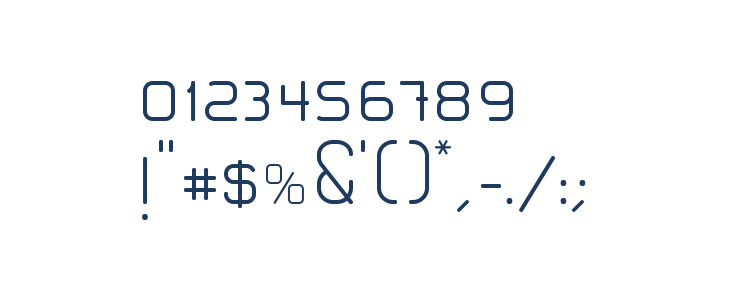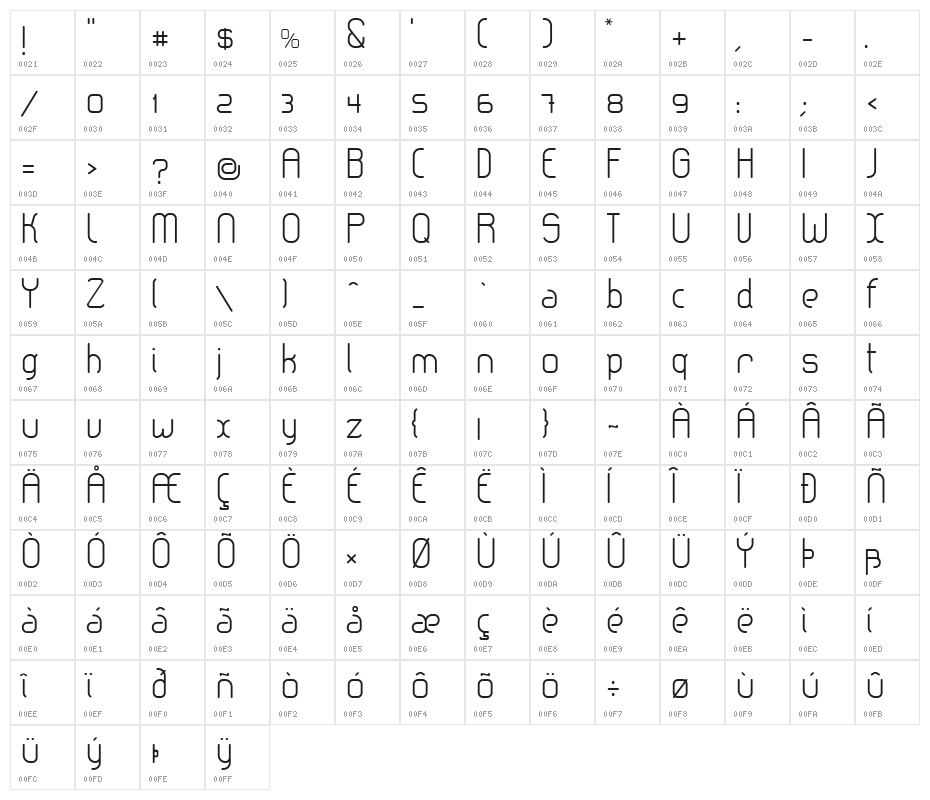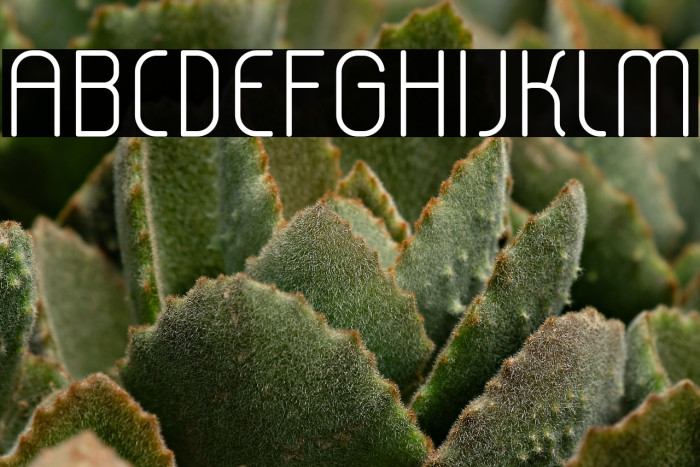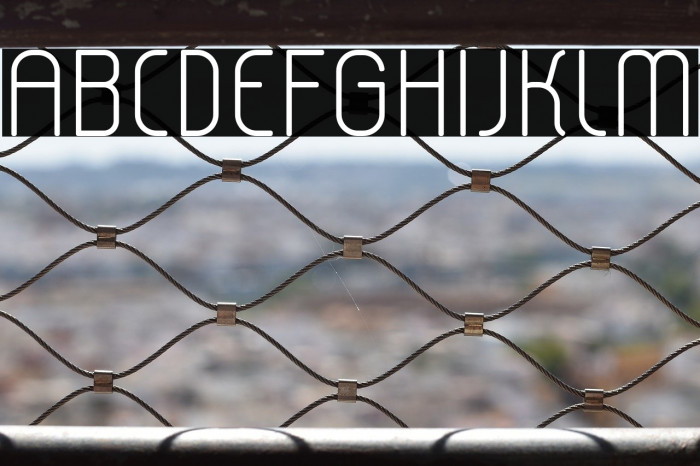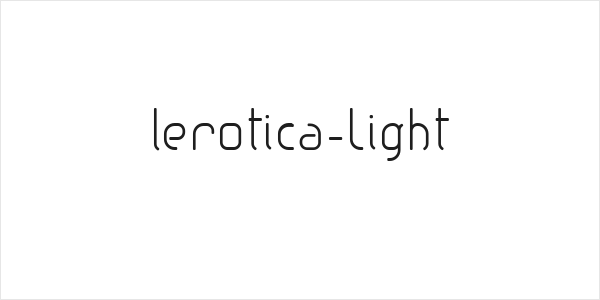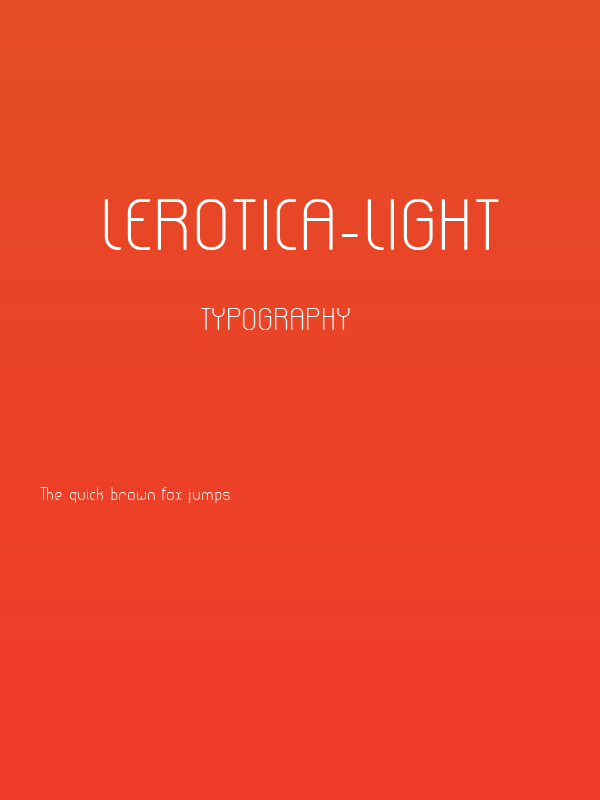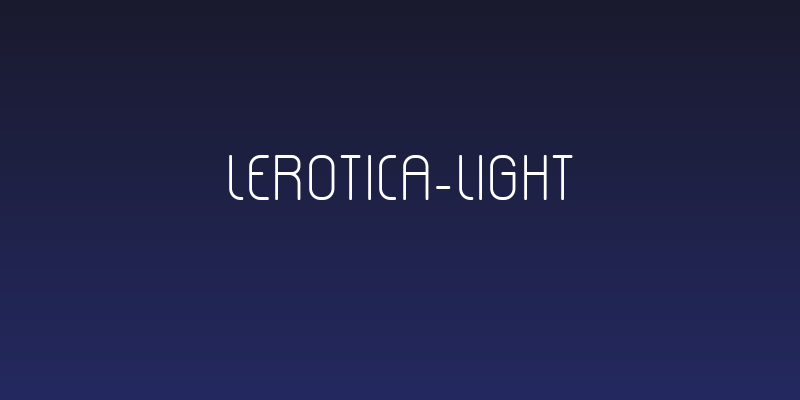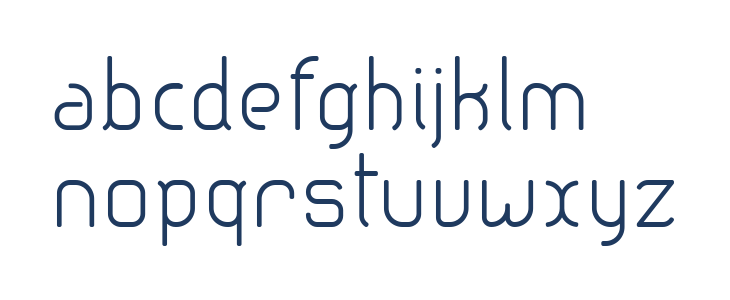
lerotica-Light Font
lerotica-Light Description
This font features a sleek, modern design with rounded edges and a clean, minimalist aesthetic. The characters are uniformly structured, providing a consistent and harmonious appearance. The uppercase and lowercase letters maintain a balanced proportion, while the numerals are distinct and easy to read. Special characters are elegantly integrated, enhancing the font's versatility. The overall design is both functional and stylish, making it suitable for a variety of applications. Its simplicity and clarity make it an excellent choice for projects that require a contemporary and professional look.
| Proposed Projects | Ideal for tech branding, modern websites, app interfaces, and minimalist design projects. |